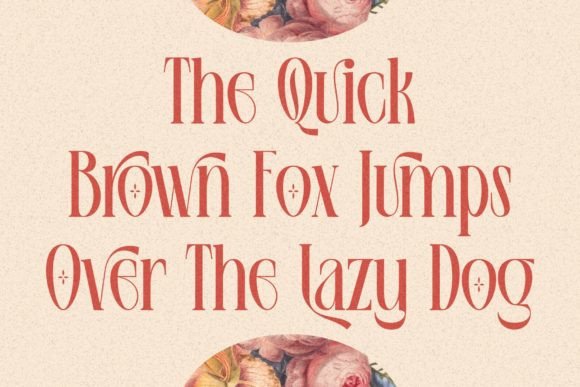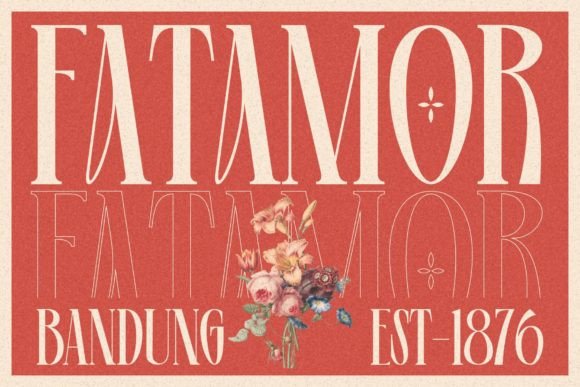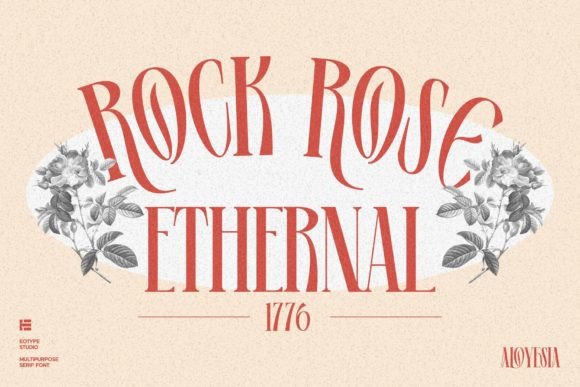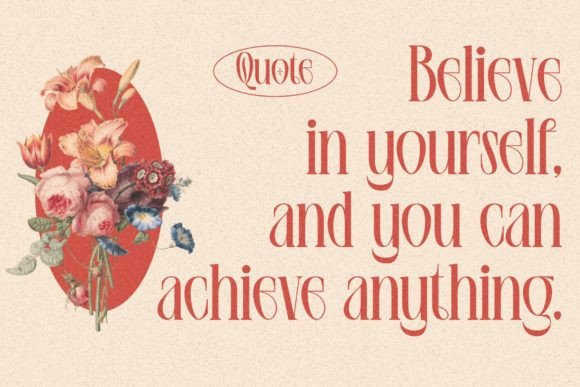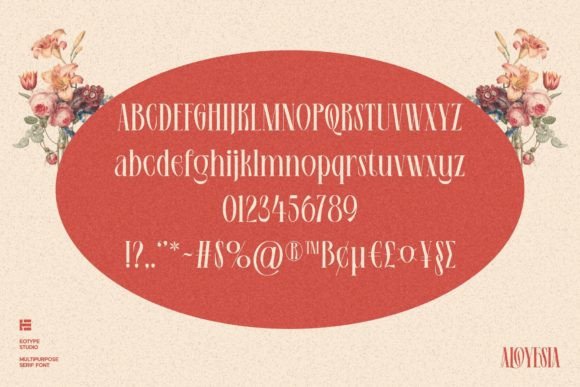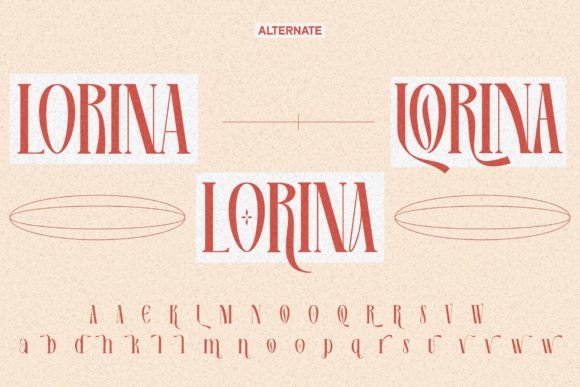
Aloyesia Font: Elevate Your Designs with Elegance and Sophistication
In the world of typography, a well-crafted font can make all the difference in creating visually stunning designs. Introducing Aloyesia, a condensed serif display font that embodies elegance and sophistication. With its beautiful curves and unique characteristics, Aloyesia is perfect for designers and crafters looking to add a touch of luxury to their projects.
The Beauty of Aloyesia
Aloyesia is a masterfully designed font that boasts a range of features that set it apart from other fonts. Its condensed serif design makes it ideal for creating beautiful logotypes, stunning magazine designs, and more. The font’s beautiful curves add a touch of sophistication, making it perfect for projects that require a high level of elegance.
Unique Features of Aloyesia
Aloyesia provides a collection of glyphs with unique shapes, giving designers a wide range of options to choose from. The font also features alternative styles and ligature features, making it perfect for complementing various projects. Whether you’re creating a logo, magazine, or website, Aloyesia has the versatility to adapt to your design needs.
Aloyesia is a font that is sure to delight designers and crafters alike. Its elegant design and range of features make it perfect for a variety of projects, including:
- Logotypes: Create stunning logos that exude elegance and sophistication.
- Magazine designs: Add a touch of luxury to your magazine designs with Aloyesia’s beautiful curves and unique glyphs.
- Websites: Elevate your website designs with Aloyesia’s condensed serif design and alternative styles.
- Branding: Create a cohesive brand identity with Aloyesia’s range of features and glyphs.
Why Choose Aloyesia?
So why choose Aloyesia over other fonts? Here are just a few reasons:
- Elegance and sophistication: Aloyesia’s beautiful curves and unique characteristics make it perfect for projects that require a high level of elegance.
- Versatility: With its range of features and glyphs, Aloyesia can be used for a variety of projects, from logotypes to magazine designs.
Tips for Using Aloyesia
Here are a few tips for getting the most out of Aloyesia:
- Experiment with different styles: Aloyesia’s alternative styles and ligature features make it perfect for experimenting with different design options.
- Pair with other fonts: Aloyesia pairs well with other fonts, making it perfect for creating visually stunning designs.
- Use for headlines and titles: Aloyesia’s condensed serif design makes it perfect for headlines and titles, adding a touch of elegance to your designs.
In conclusion, Aloyesia is a font that is sure to elevate your designs to the next level. With its elegant design, range of features, and versatility, it’s perfect for designers and crafters looking to add a touch of luxury to their projects. Whether you’re creating a logo, magazine, or website, Aloyesia is a font that is sure to impress.